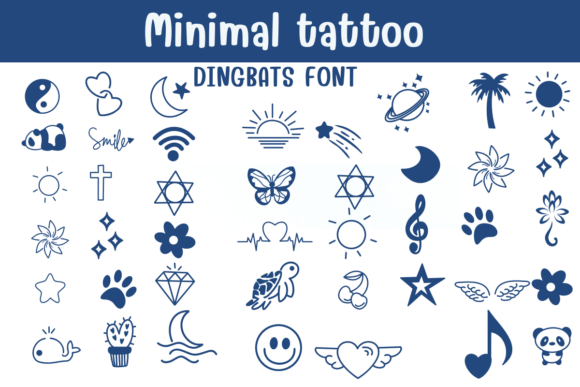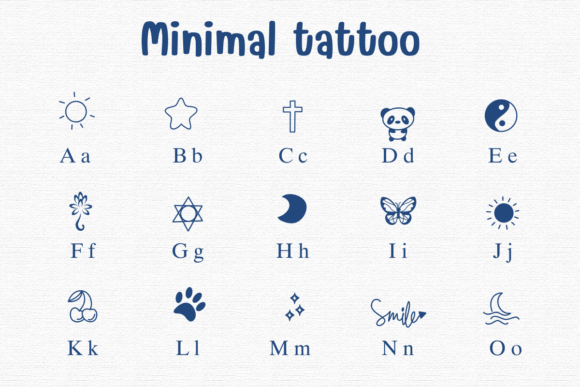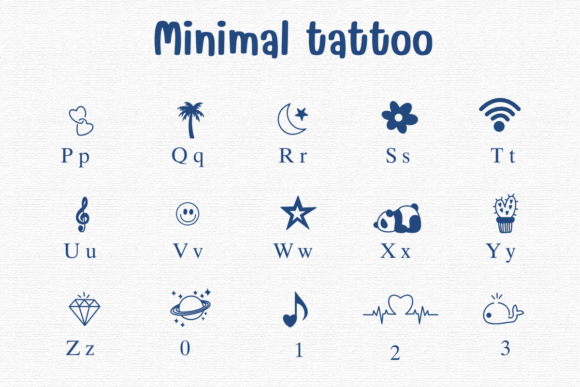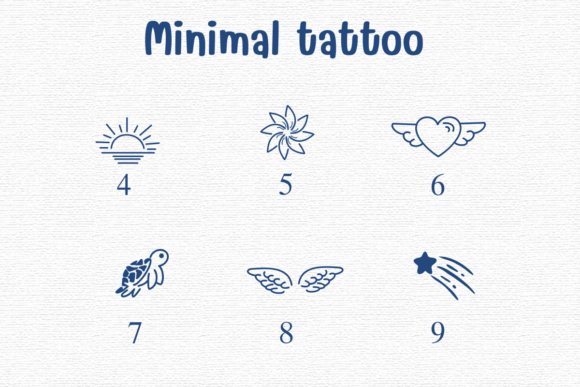
Minimal Tattoo Font
Minimal Tattoo is a clean and stylish dingbats font featuring popular tattoo icons like moons, stars, hearts, flowers, and symbols—all in a simplified, minimal line-art style. It’s perfect for tattoo flash sheets, aesthetic graphics, spiritual branding, and social media stickers.